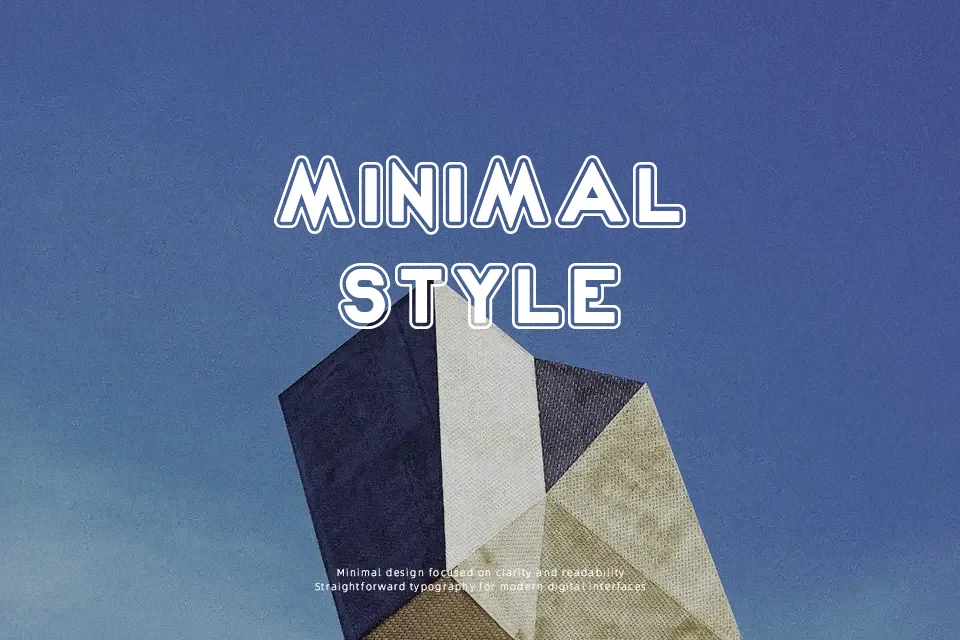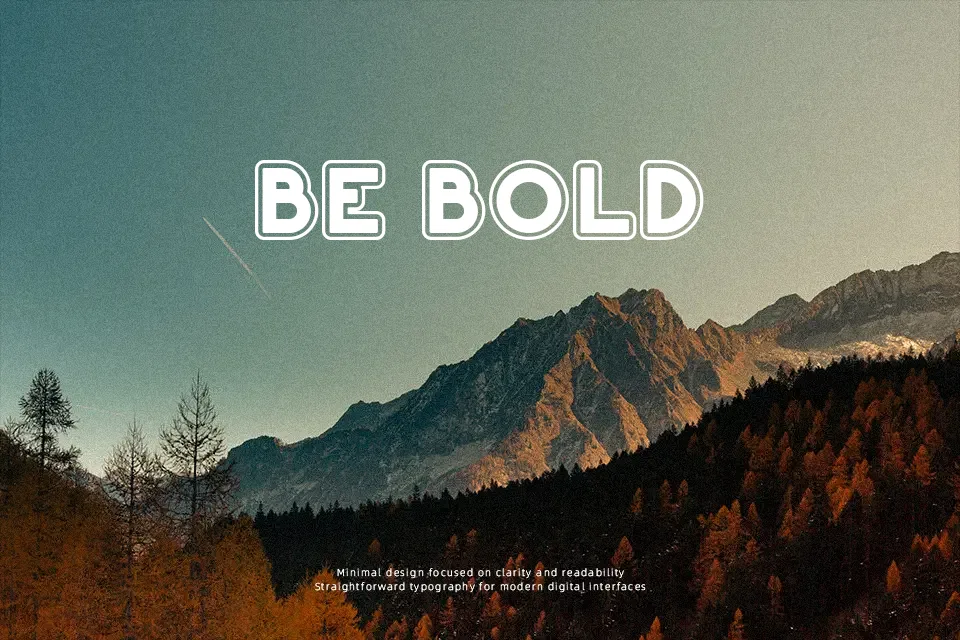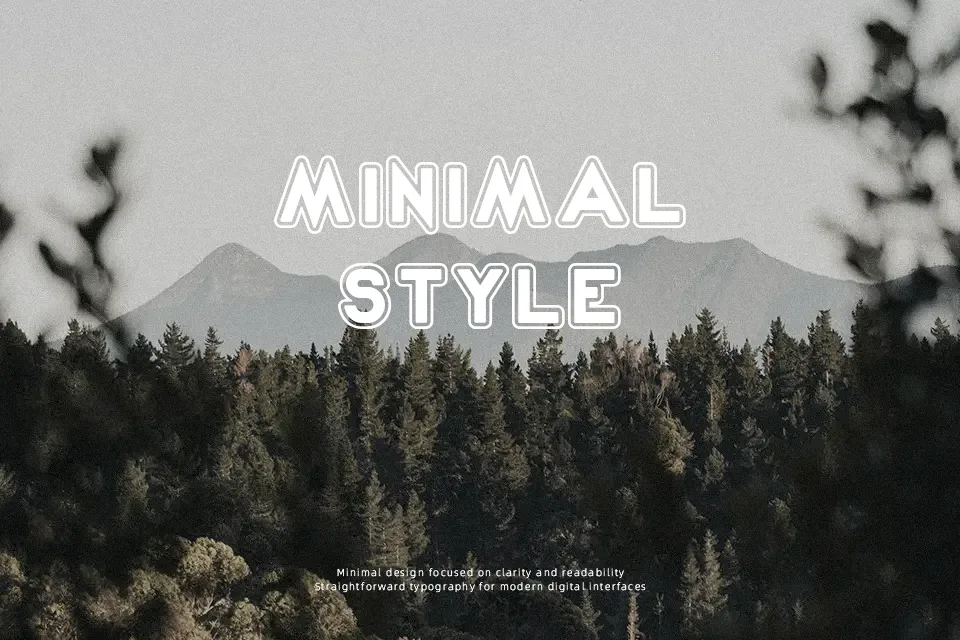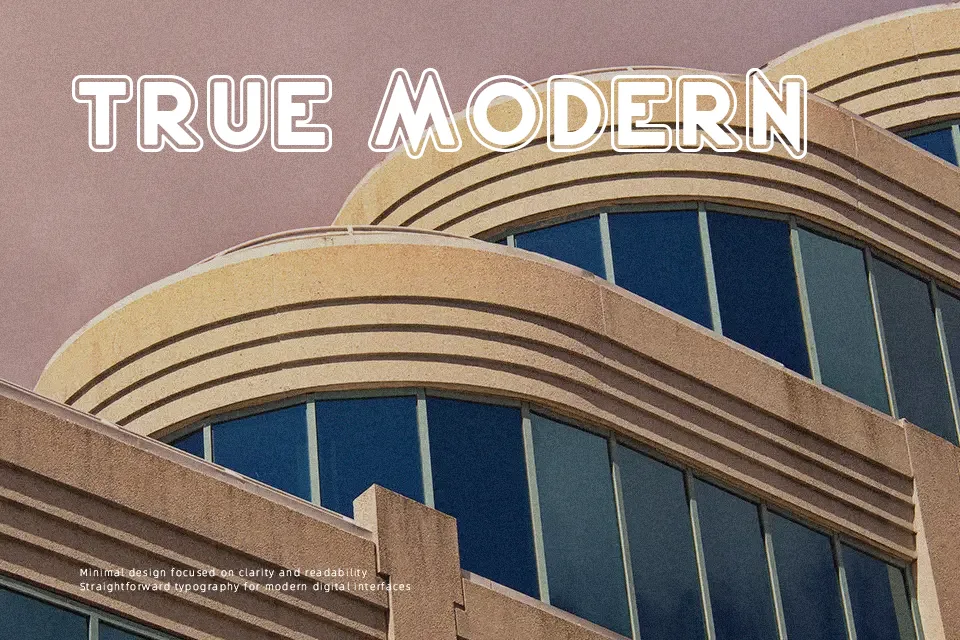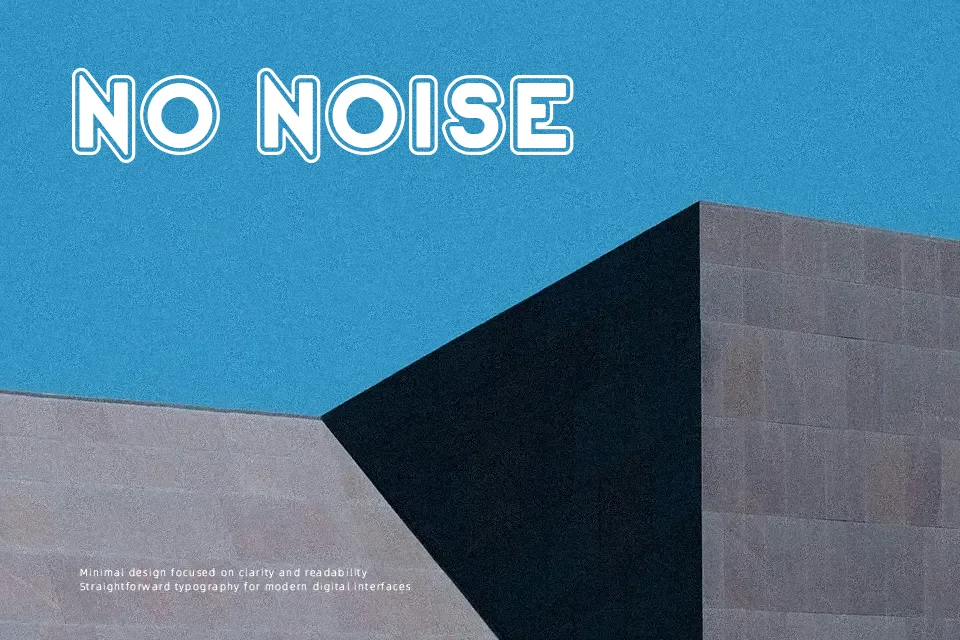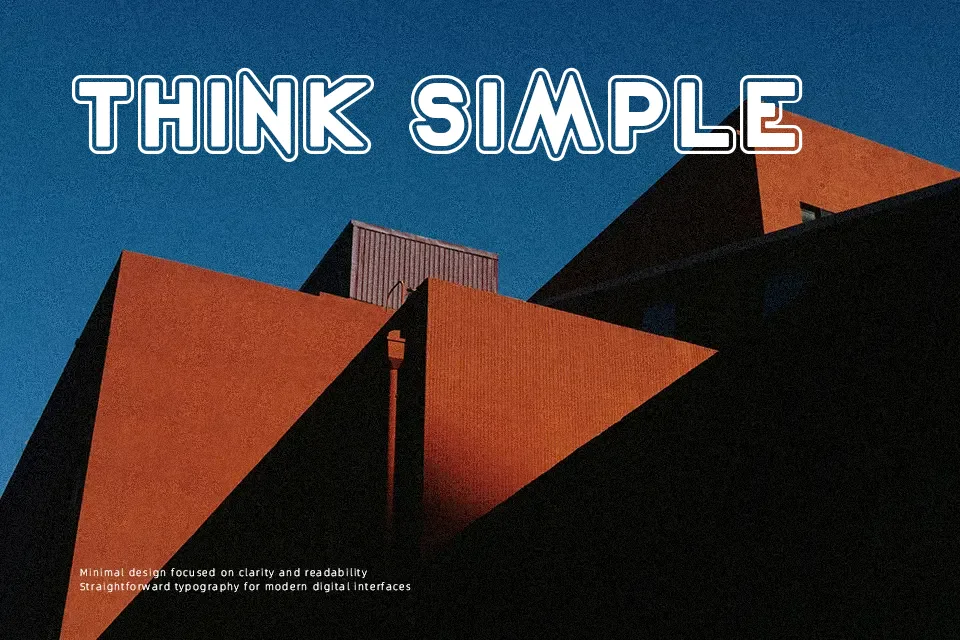
2020 Outline Fortune Kei Font
Designed by Arutype Studio
The outline treatment on Fortune Kei gives each letterform a hollow, layered presence — strokes are clean but carry a ceremonial weight that reads as festive rather than corporate. It leans decorative, drawing from a design sensibility tied to celebration and seasonal themes. In practice, it fits well on large-format posters, event banners, or themed packaging where the headline needs to carry visual energy on its own. That said, the outline structure significantly limits legibility at smaller point sizes, and it would struggle in any context requiring extended reading. If your project needs something subtle or adaptable across multiple type scales, this one will work against you. Where it earns its keep is in single-word or short-phrase applications with strong contrast behind it.
– New Year or seasonal event poster headlines
– Themed packaging or gift label typography
– Festival or cultural campaign display text
– Body text or any multi-line reading context
– Corporate or professional branding materials
– Small-size applications such as business cards or UI labels
– Projects requiring a neutral or restrained visual tone
Perfect for headline, holiday, and packaging, with a bold and decorative style.